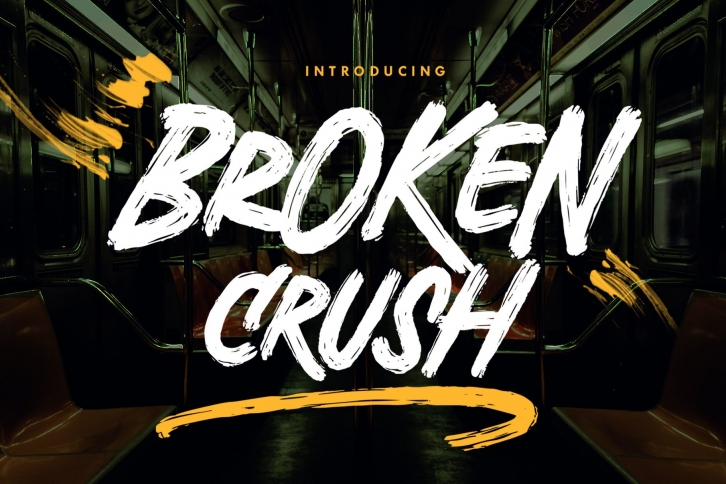
Broken Crush - Brush Font Download
Broken Crush is a great font that was designed by Arterfak Project. Imagine the amount of combinations you can create using this font! The archive is 17.91 MB and it was released on January 3, 2021. Broken Crush looks beautiful on wedding invitations, greeting cards, logos, posters, labels, t-shirt designs, logos, business cards and is perfect for use in ink or watercolor works, fashion, magazines, packaging and food menus, children's books and more!